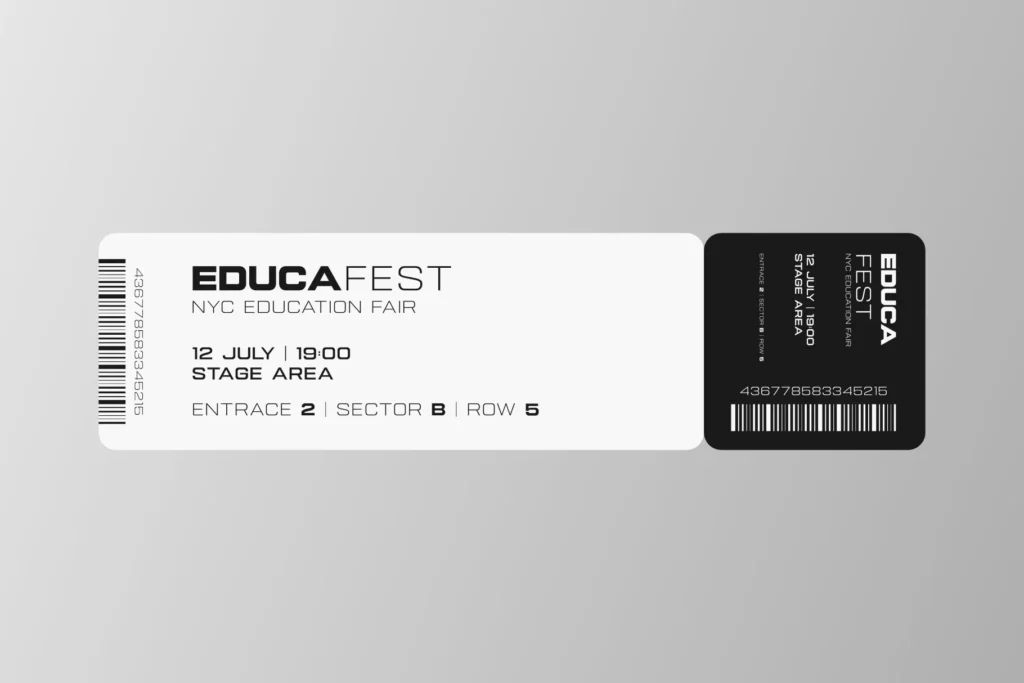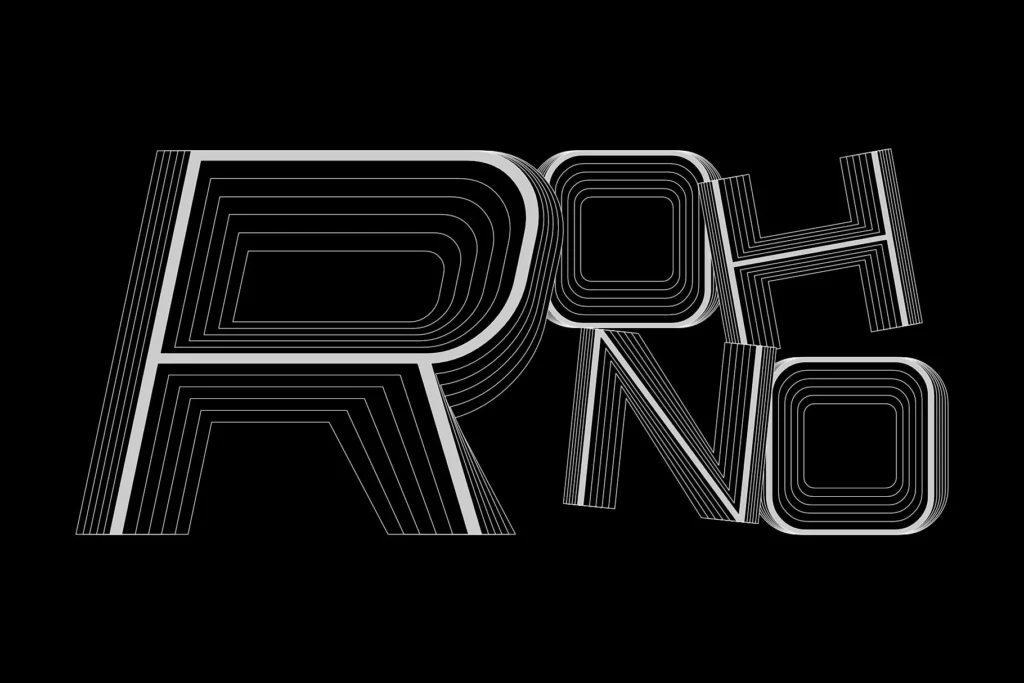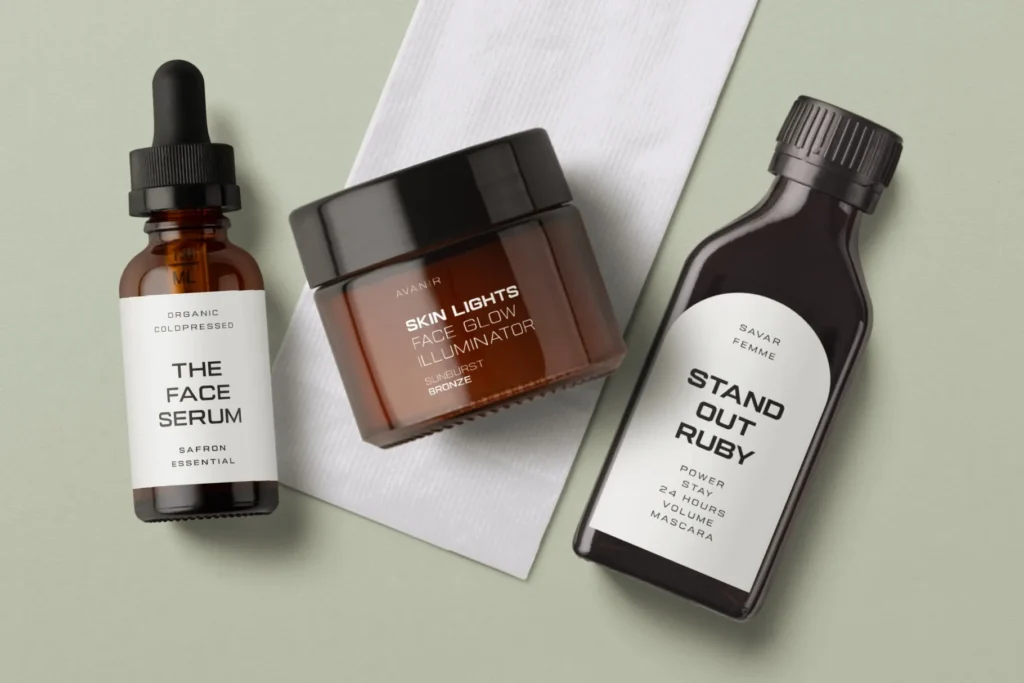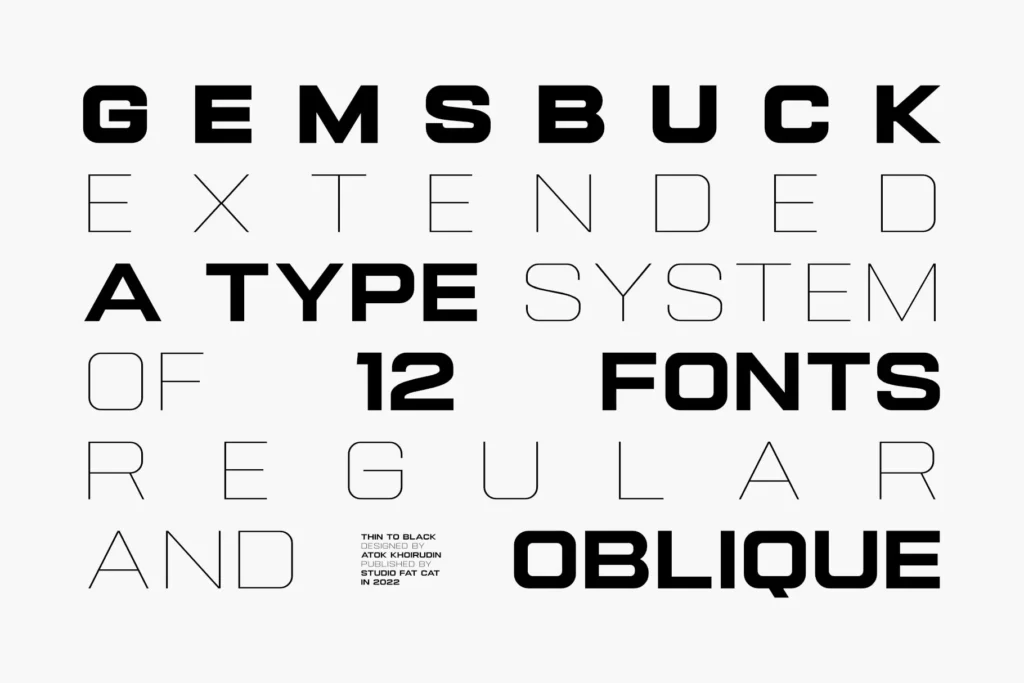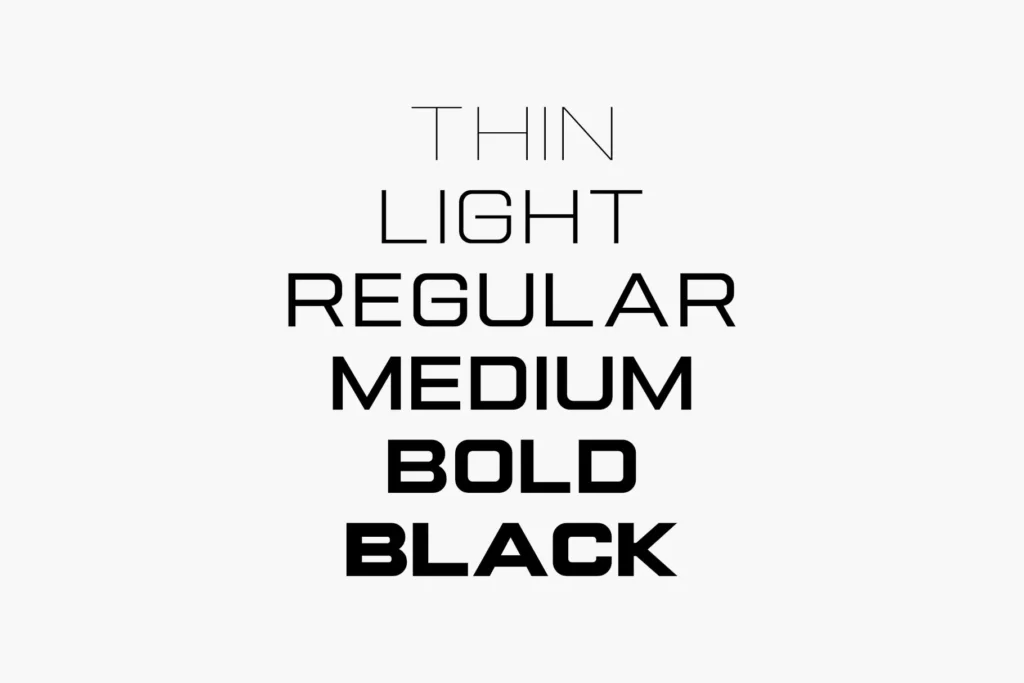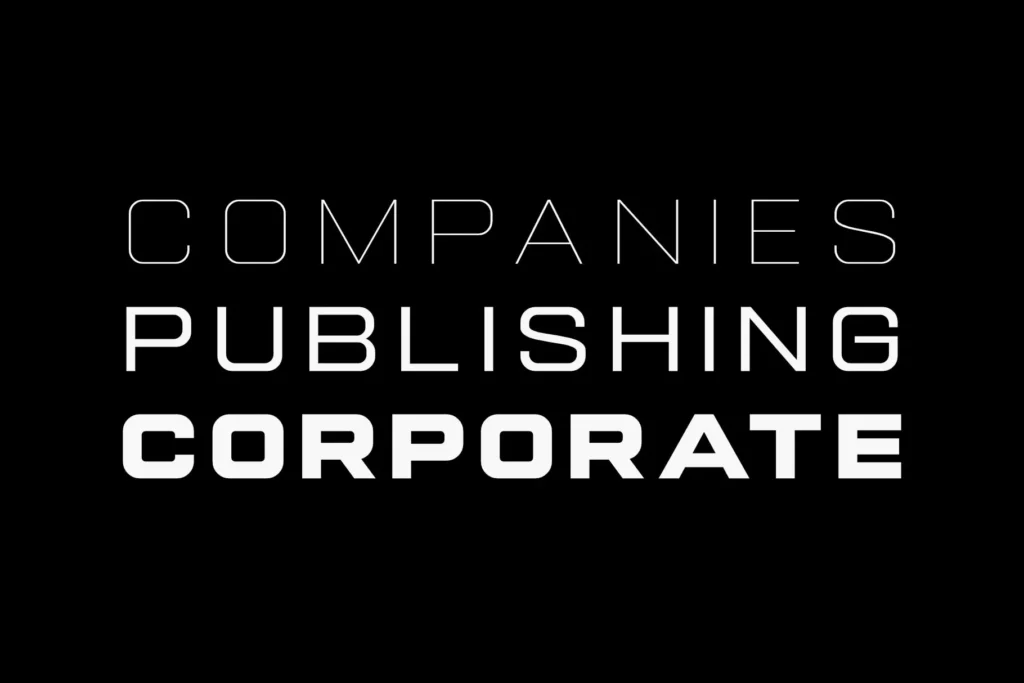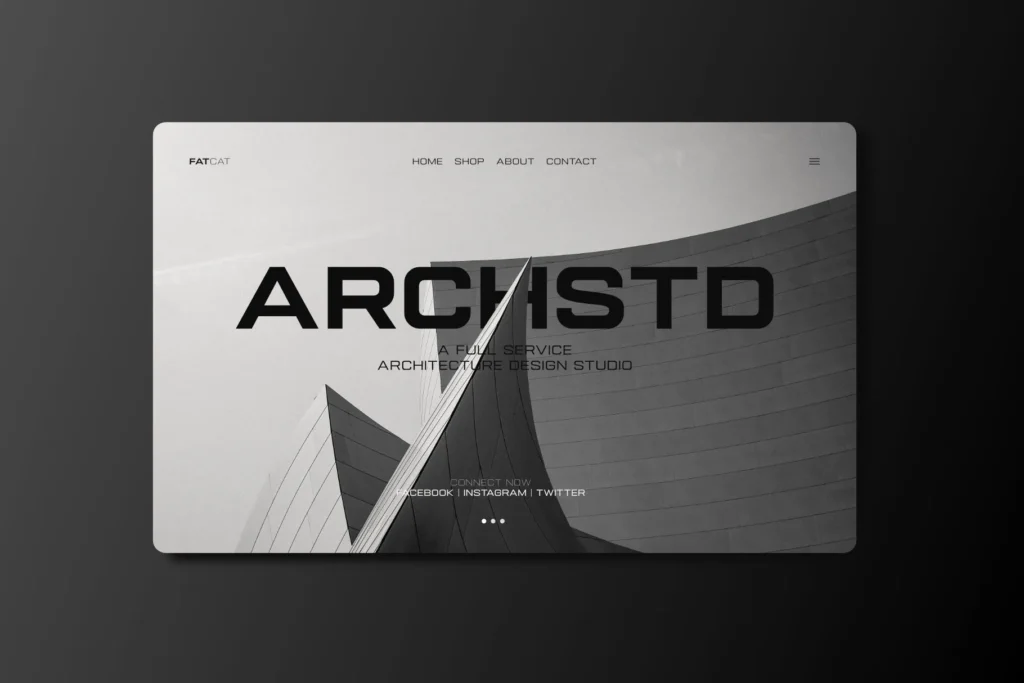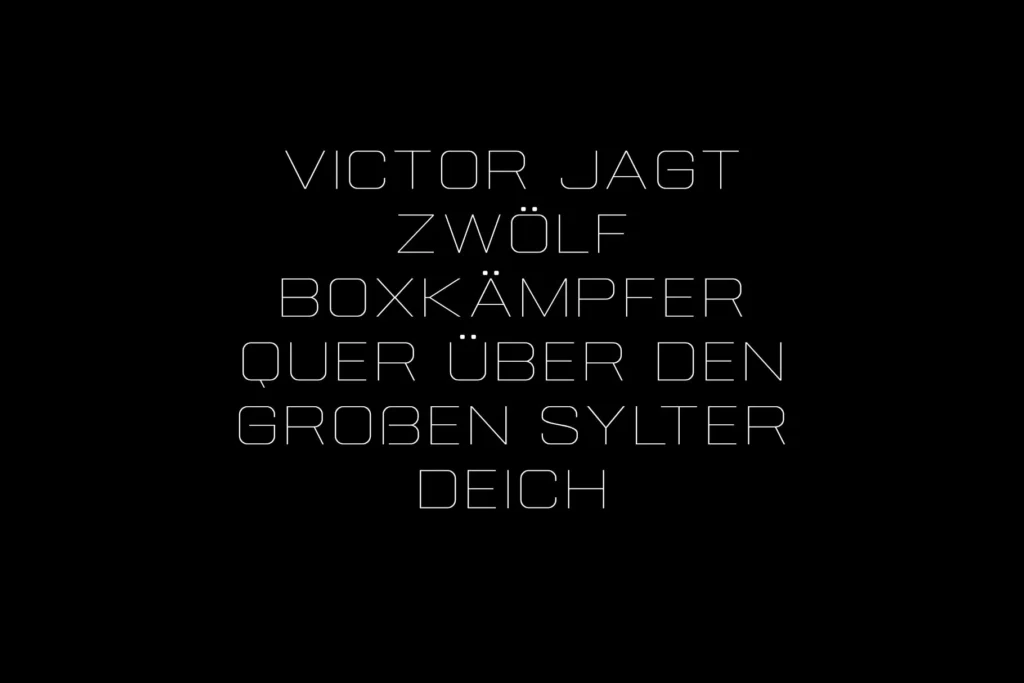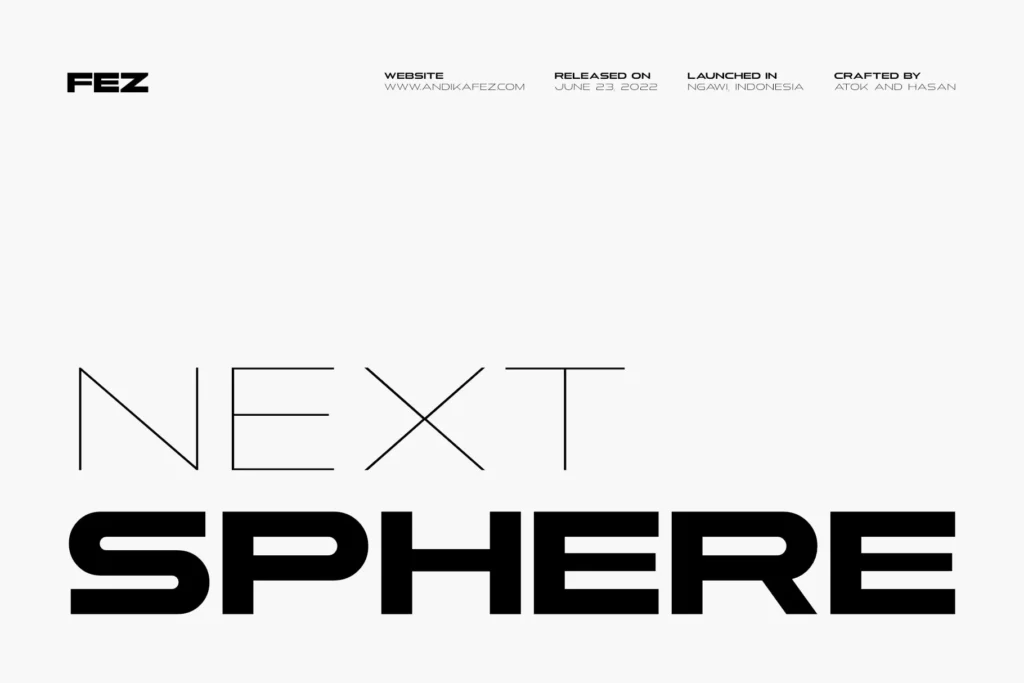
The Modern Industrial Font Bundle
from
Andika Fez
is a collection of 3 typefaces that feature over 40 industrial sans serif fonts. Add them confidently to your next project for a great result.